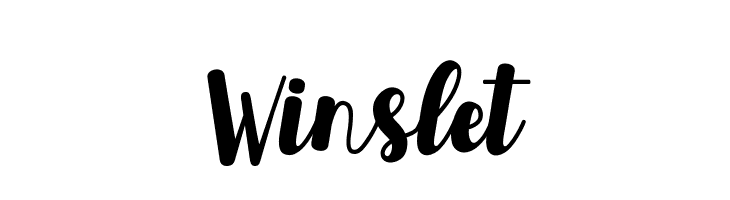
A bold, expressive script font with dynamic strokes and playful elegance.
A modern, geometric sans-serif font with clean lines and uniform strokes.
A whimsical, twisted font with a spooky, supernatural vibe.
A bold, condensed, and italicized font with a dynamic and modern style.
A bold, brush script font with a dynamic, handwritten style.
A bold, italicized font with a halftone effect, ideal for dynamic and eye-catching designs.
A bold, futuristic italic font with sharp angles and geometric shapes.
A bold, modern font with high contrast and geometric elements.
A playful handwritten font with smooth curves and a casual style.
A lively and elegant script font with flowing, cursive letterforms.